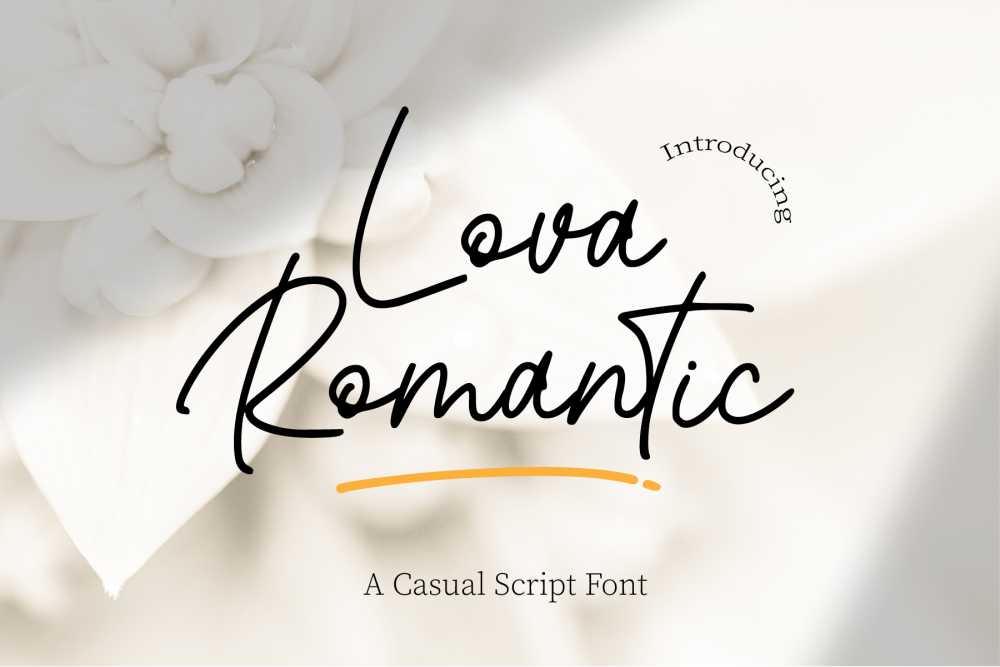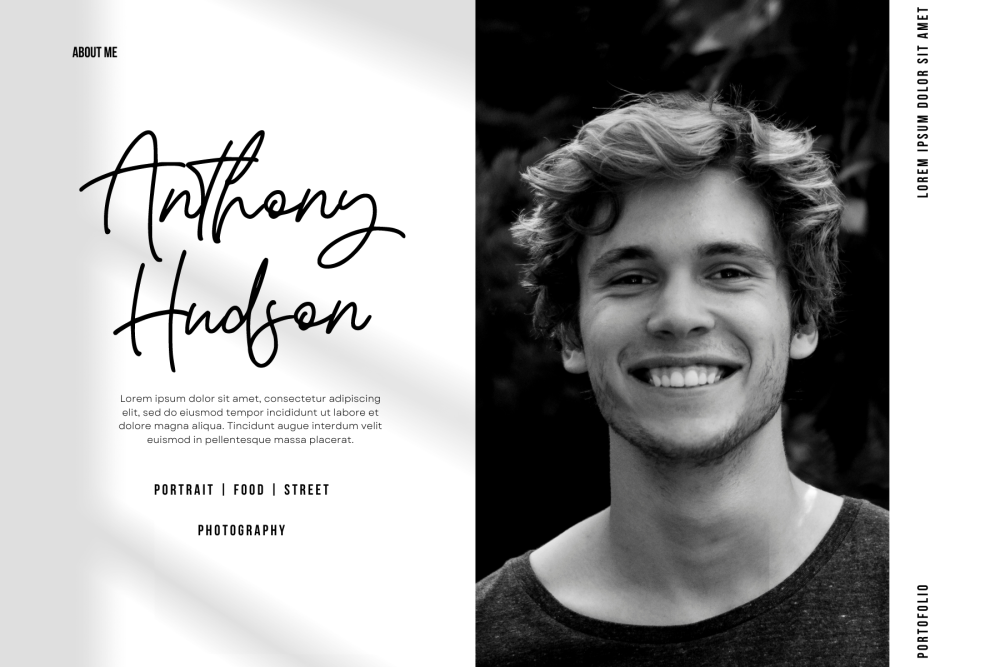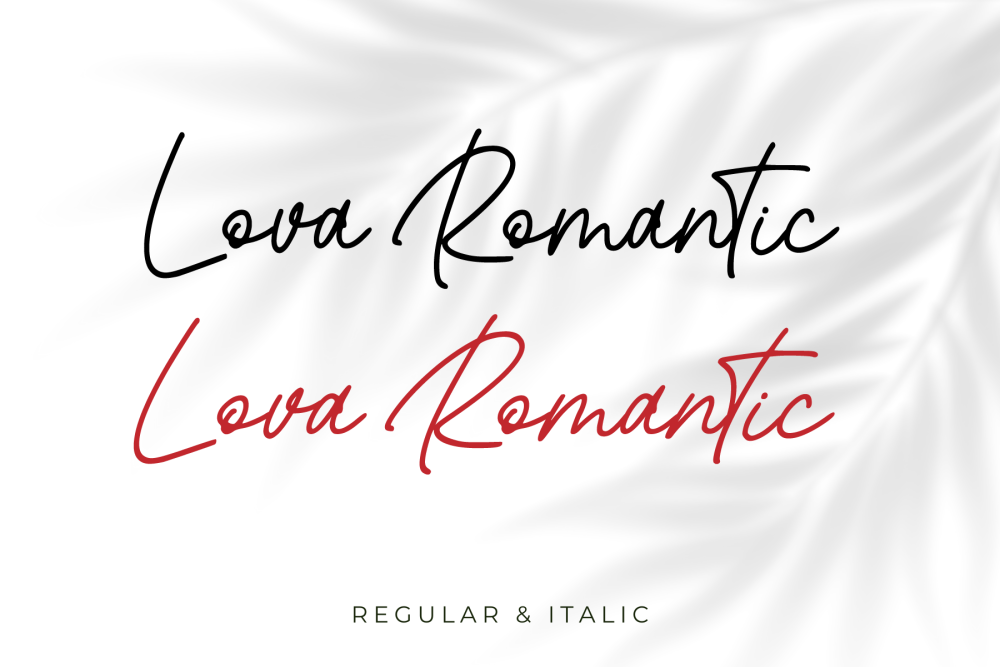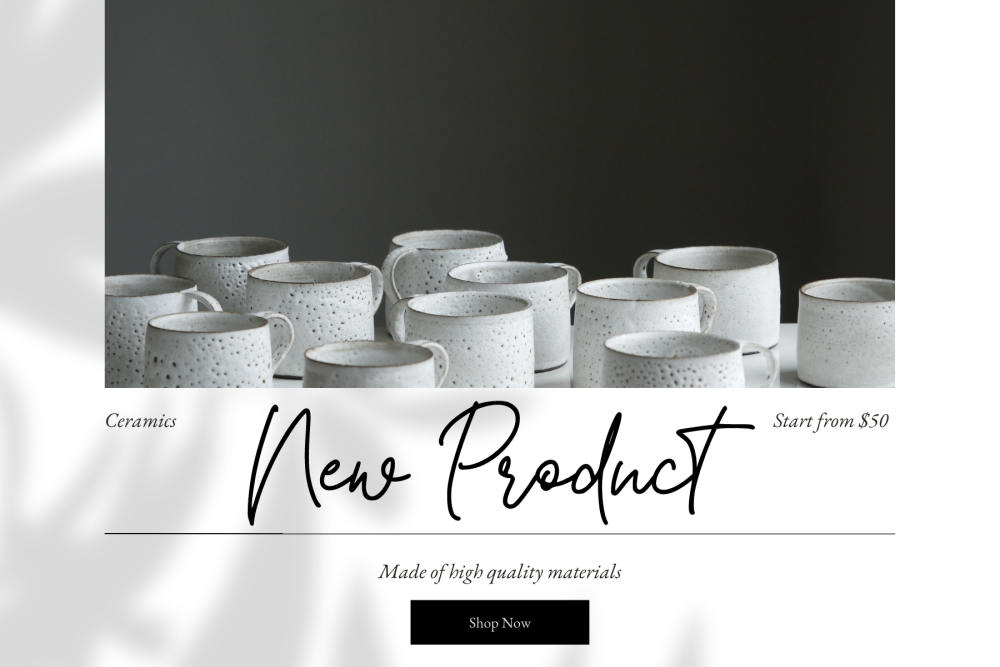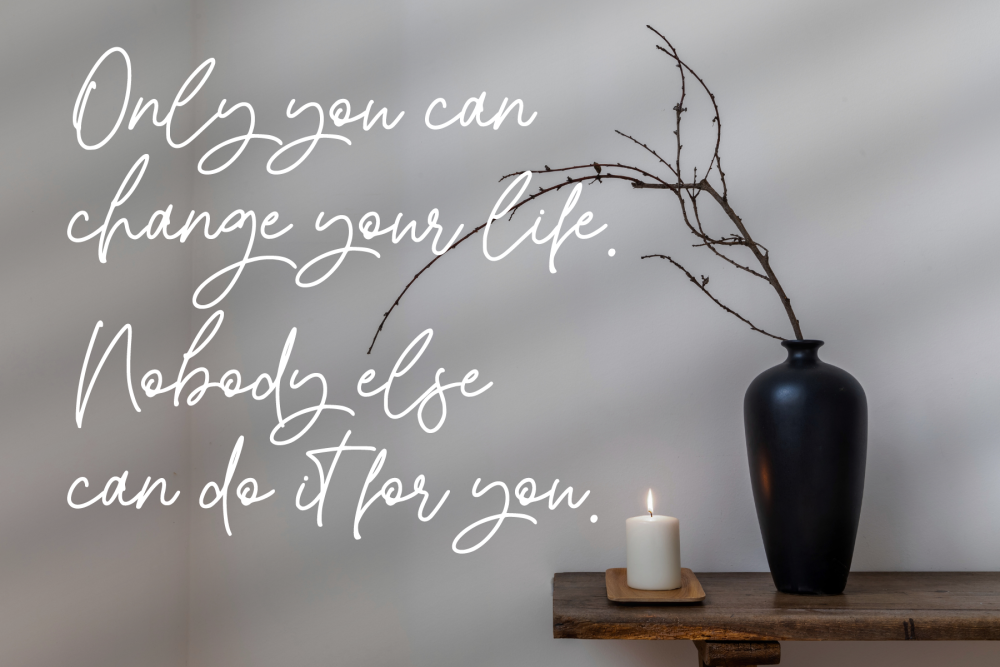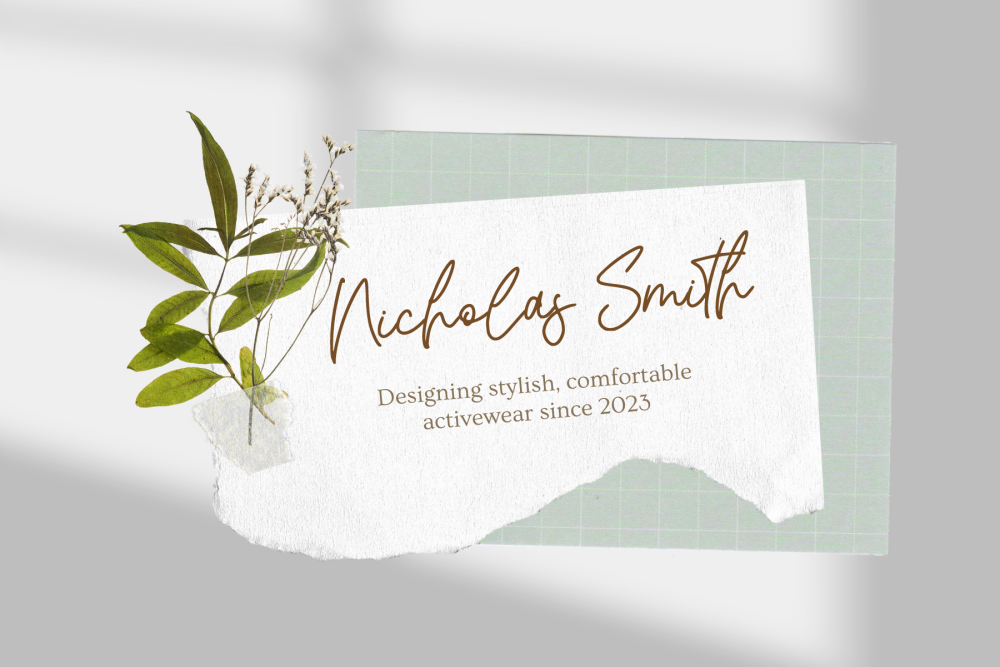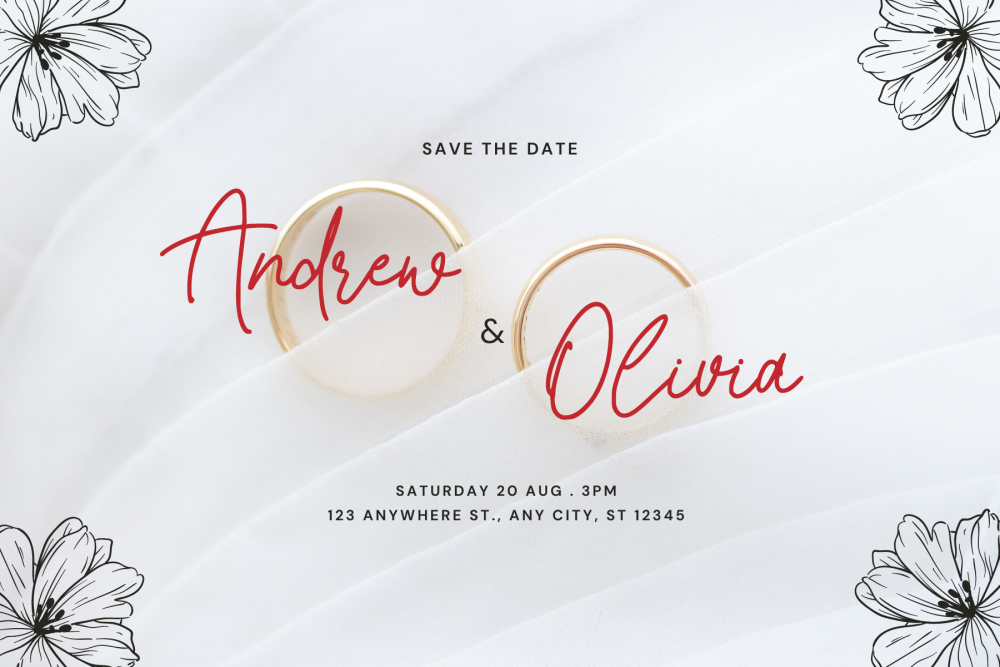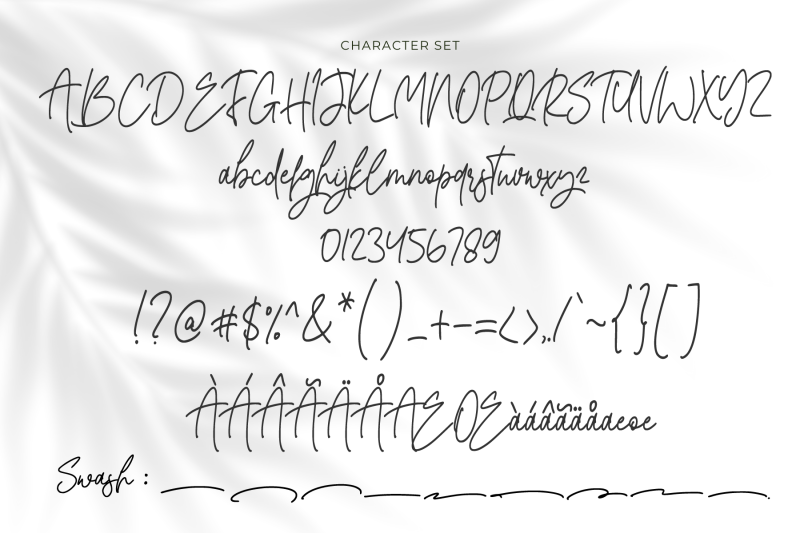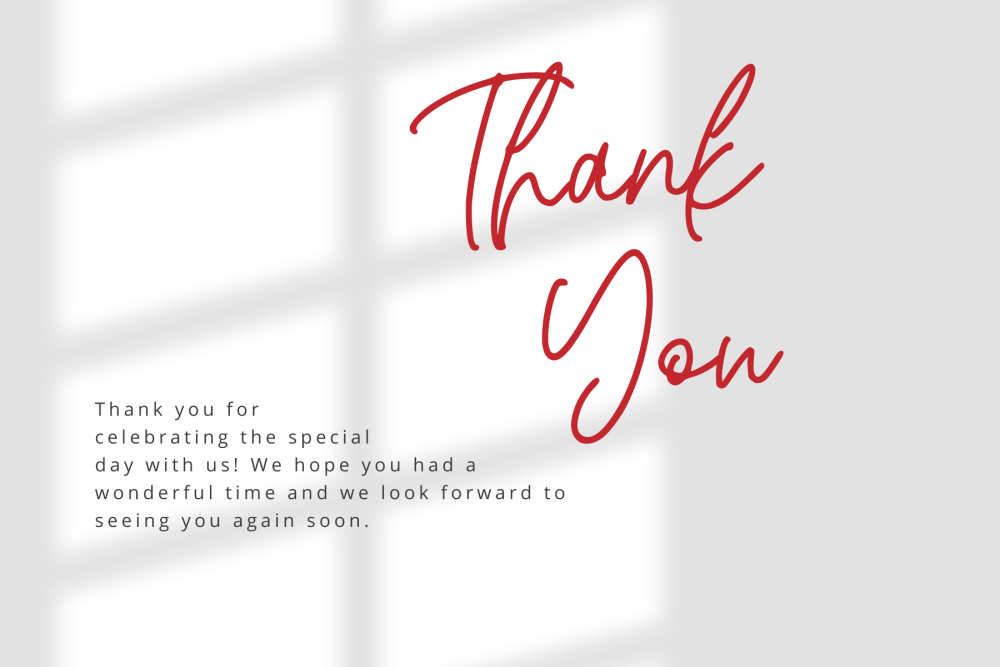
Lova Romantic is a casual script font. Its charm makes it appear wonderfully, readable, and, ultimately, incredibly versatile.
Comes in Regular and Italic styles.
Lova Romantic is perfect for branding projects, logo, wedding designs, social media posts, advertisements, product packaging, product designs, label, photography, watermark, invitation, stationery and any projects that need handwriting taste.